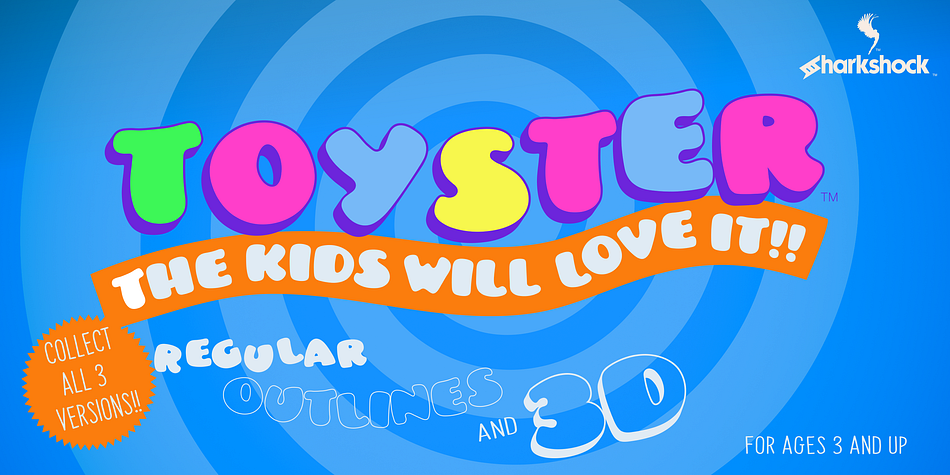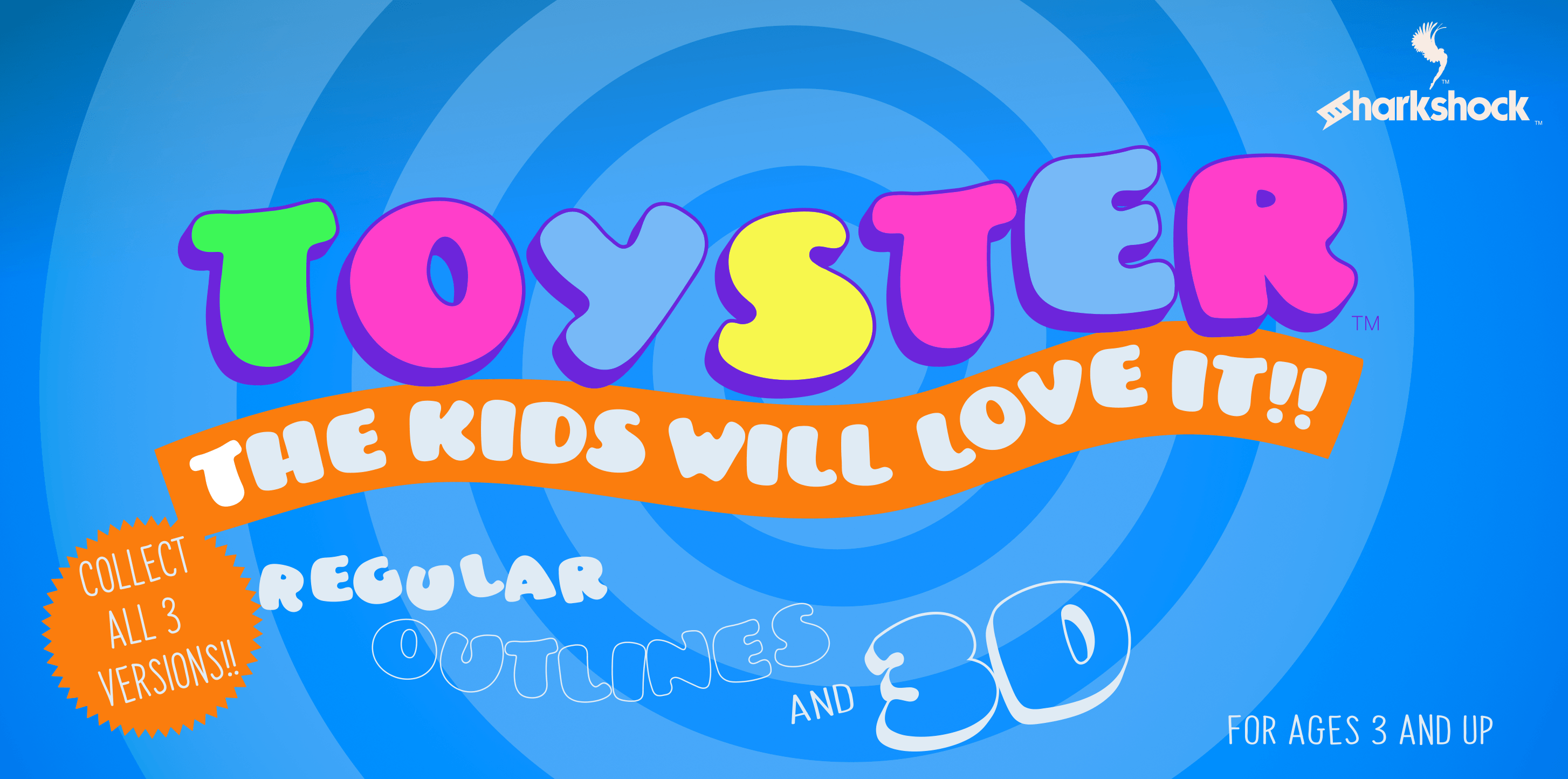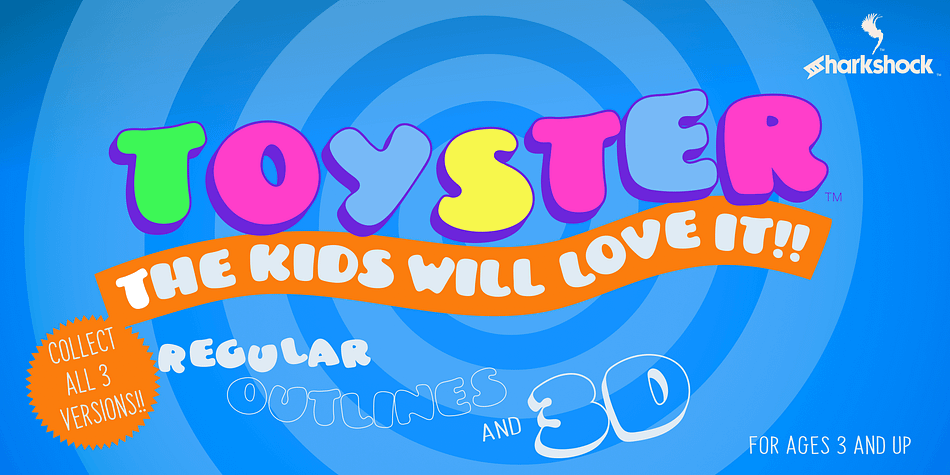
Designed by Dennis Ludlow, Toyster is a hand display and kids font family. This typeface has three styles and was published by Sharkshock.
Say hello to fun and goodbye to dull! Toyster is an all caps display font that’s designed with playfulness in mind. The childlike characters are defined by their rounded corners, low contrast, and pudgy weight. Use it for a children’s book, toy packaging, cartoon, or store signage. With 3 different versions Toyster is sure to resonate with kids and the young at heart.